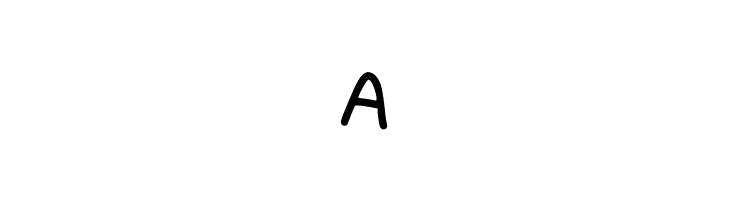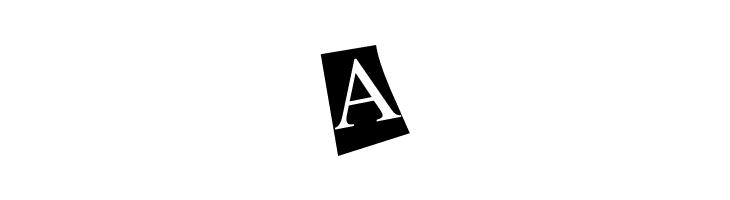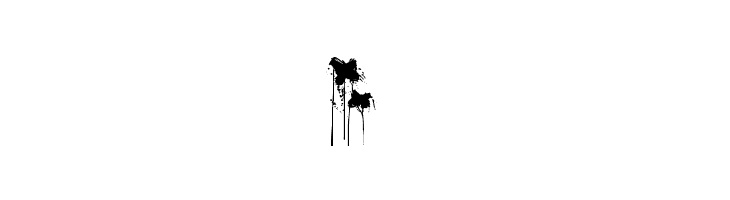
A bold, high-contrast font with tall, narrow characters.
A playful, whimsical script font with flowing, interconnected letters.
A playful, informal handwritten font with rounded, consistent strokes.
Expressive handwritten display font with playful, irregular forms.
A playful, eclectic font with a cut-out, ransom note style.
An artistic font with ink splatter-inspired characters, offering a chaotic and expressive style.
A chaotic, glitchy font with overlapping, distorted letterforms and a dynamic, scribbled style.
A chaotic, fragmented font with a gritty and textured appearance.
A ransom note-style font with a chaotic, cut-and-paste aesthetic.
A playful, eclectic font with a cut-out magazine style, perfect for creative designs.